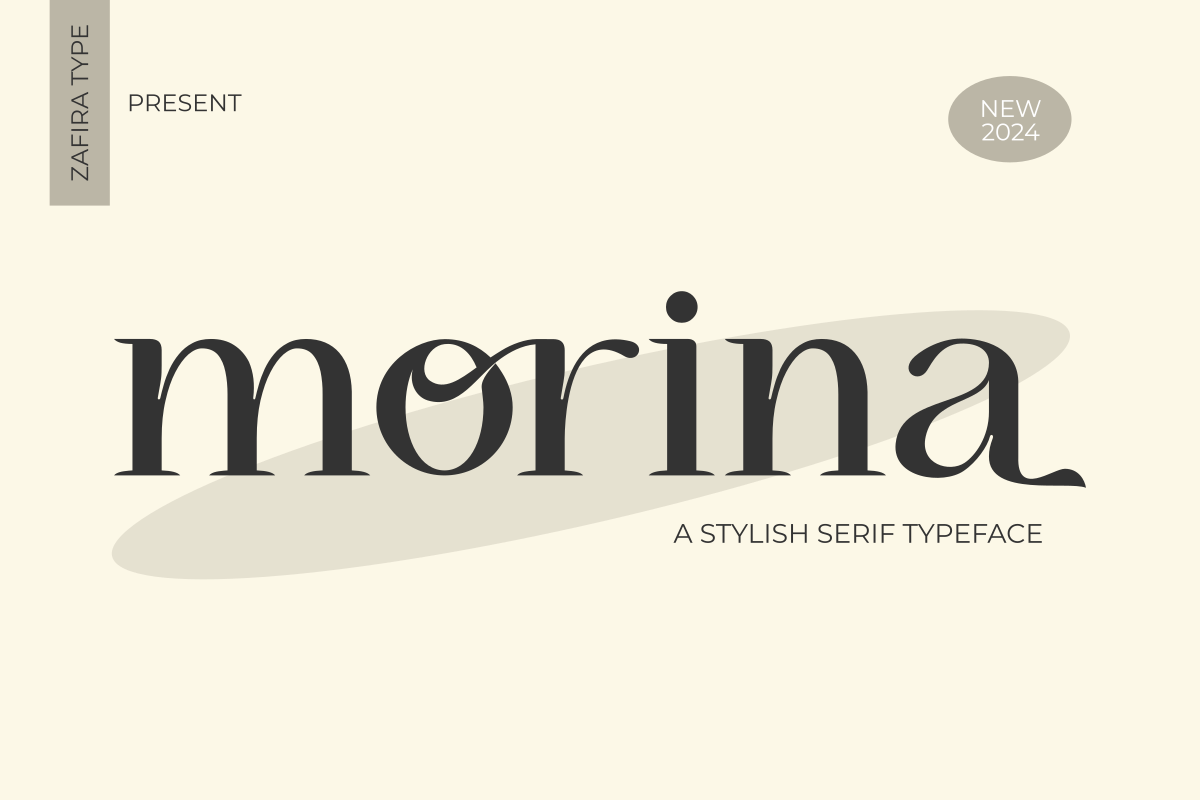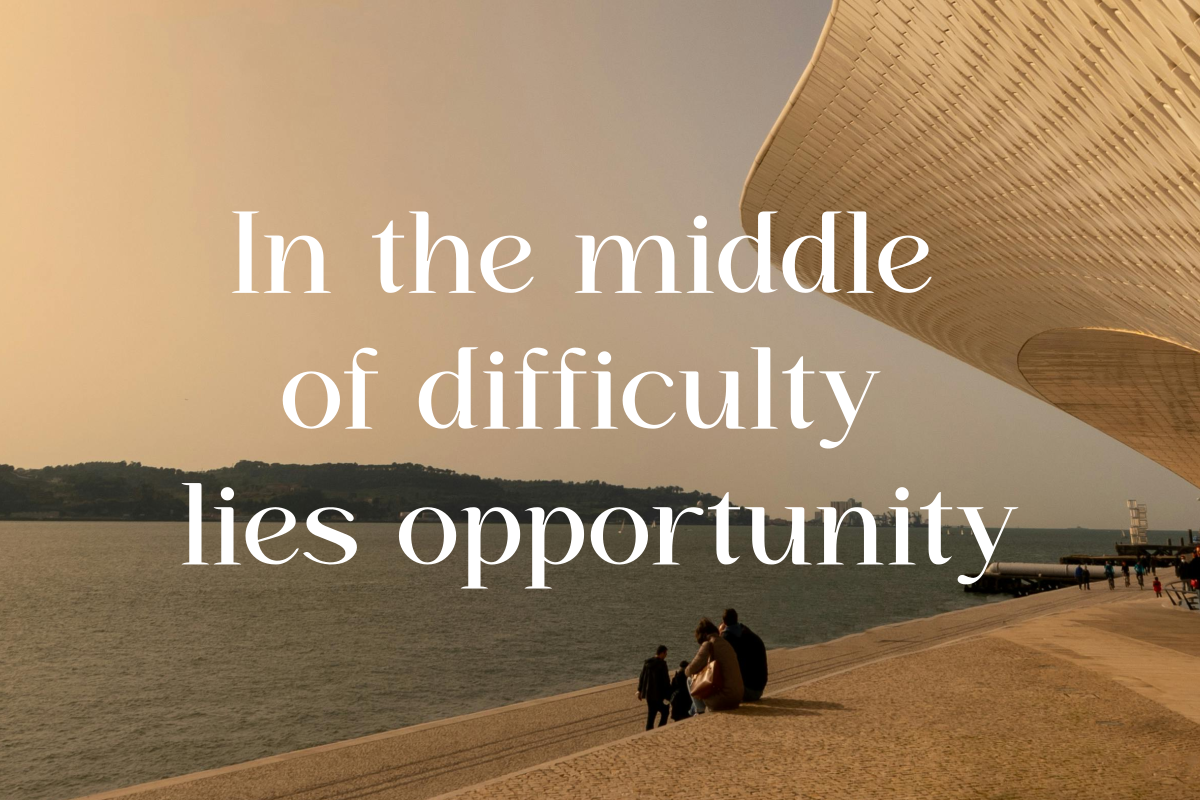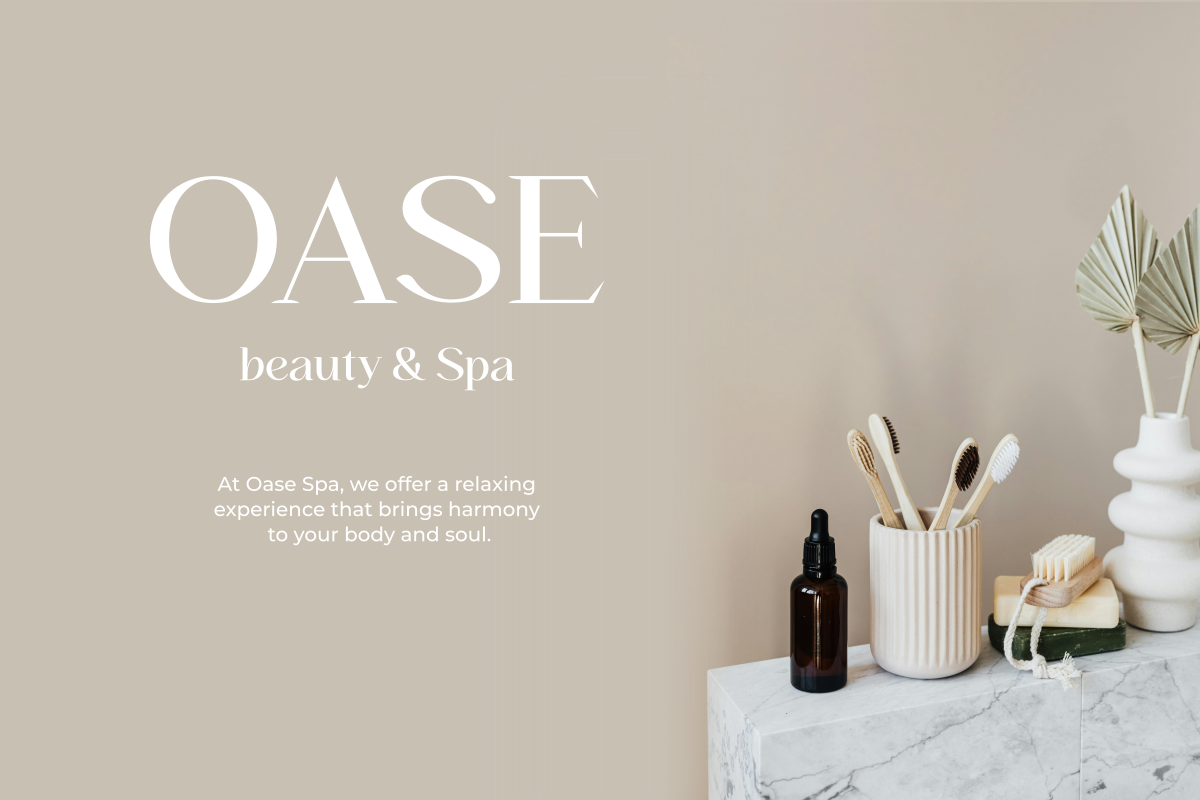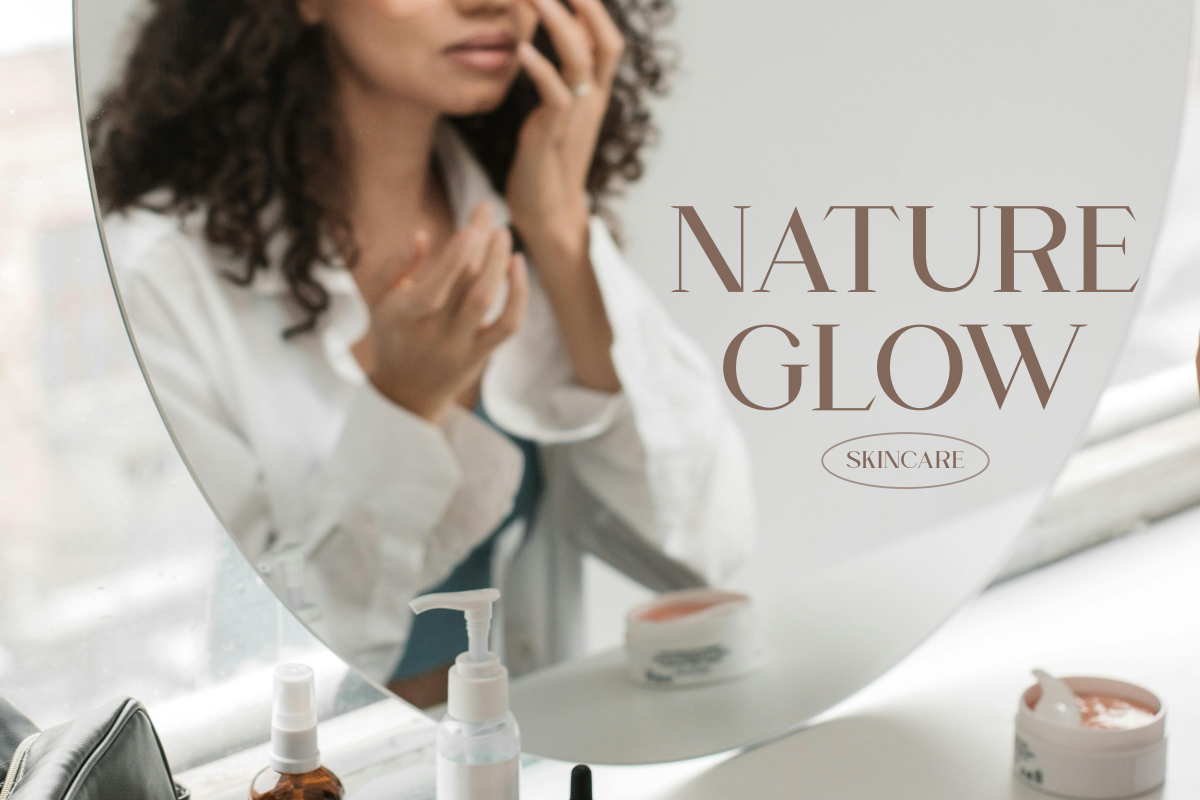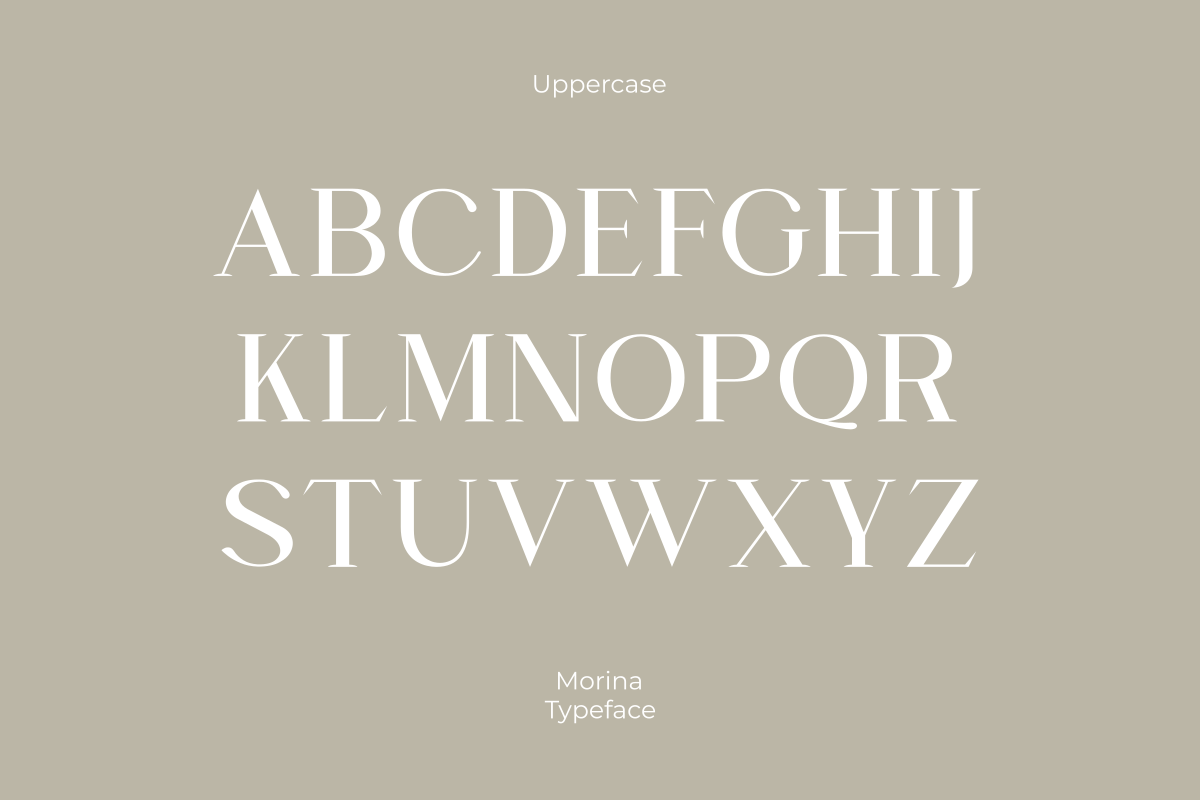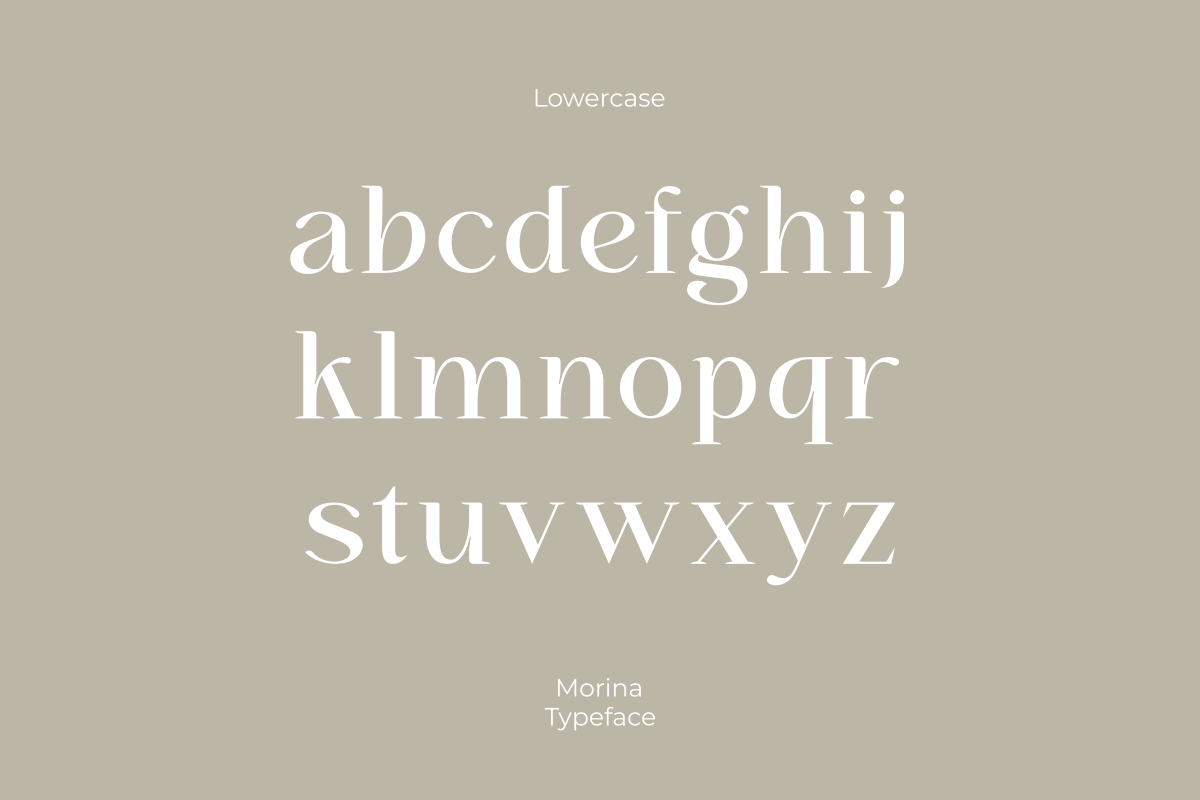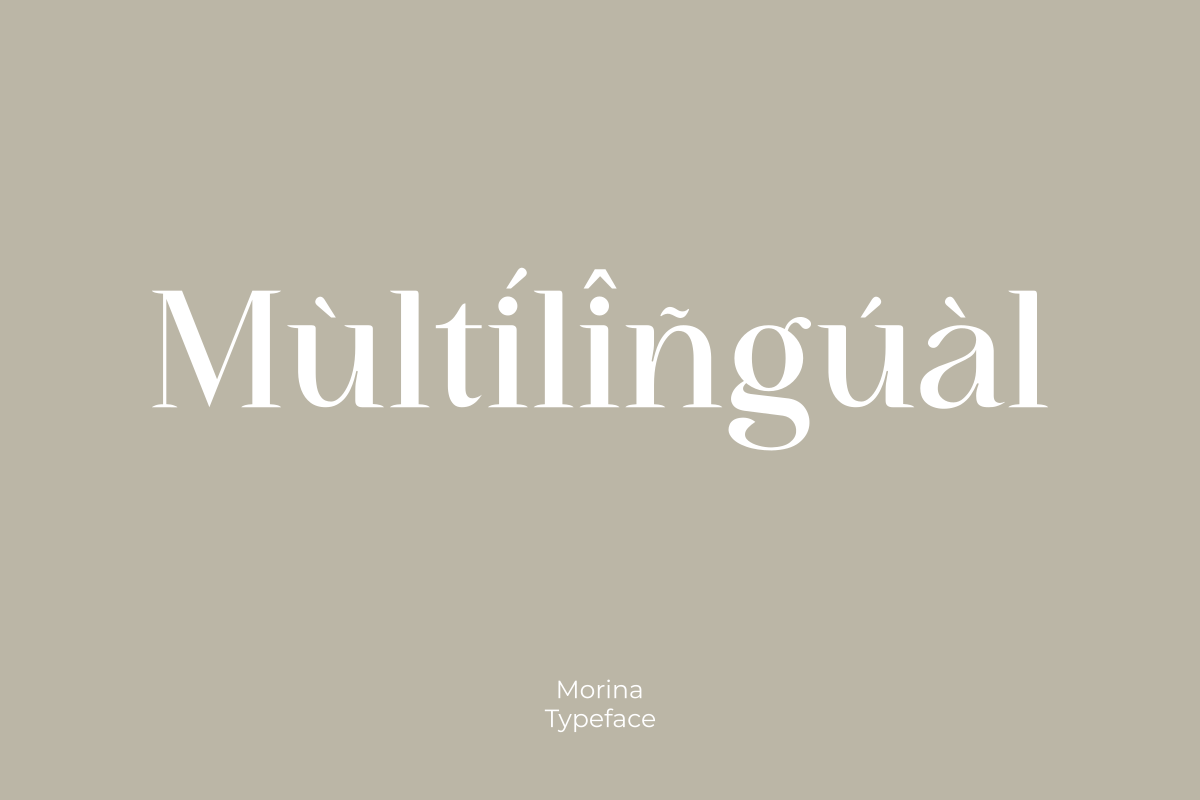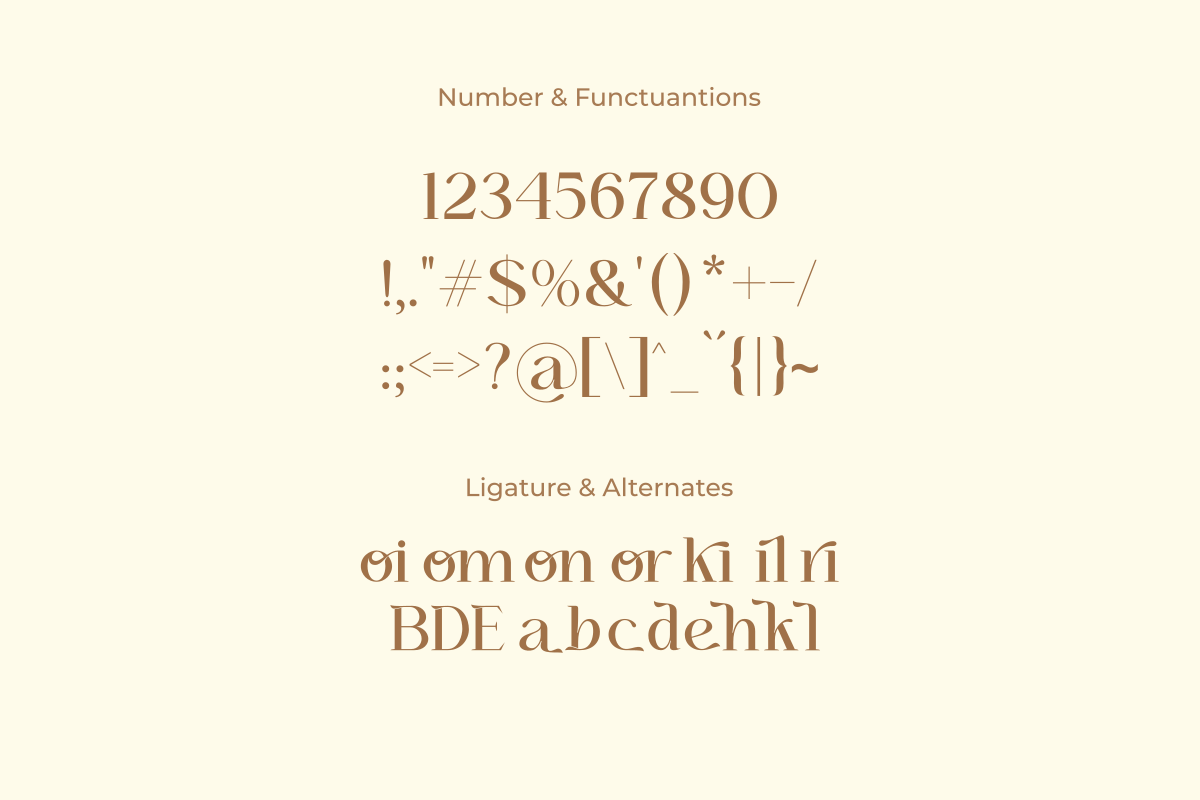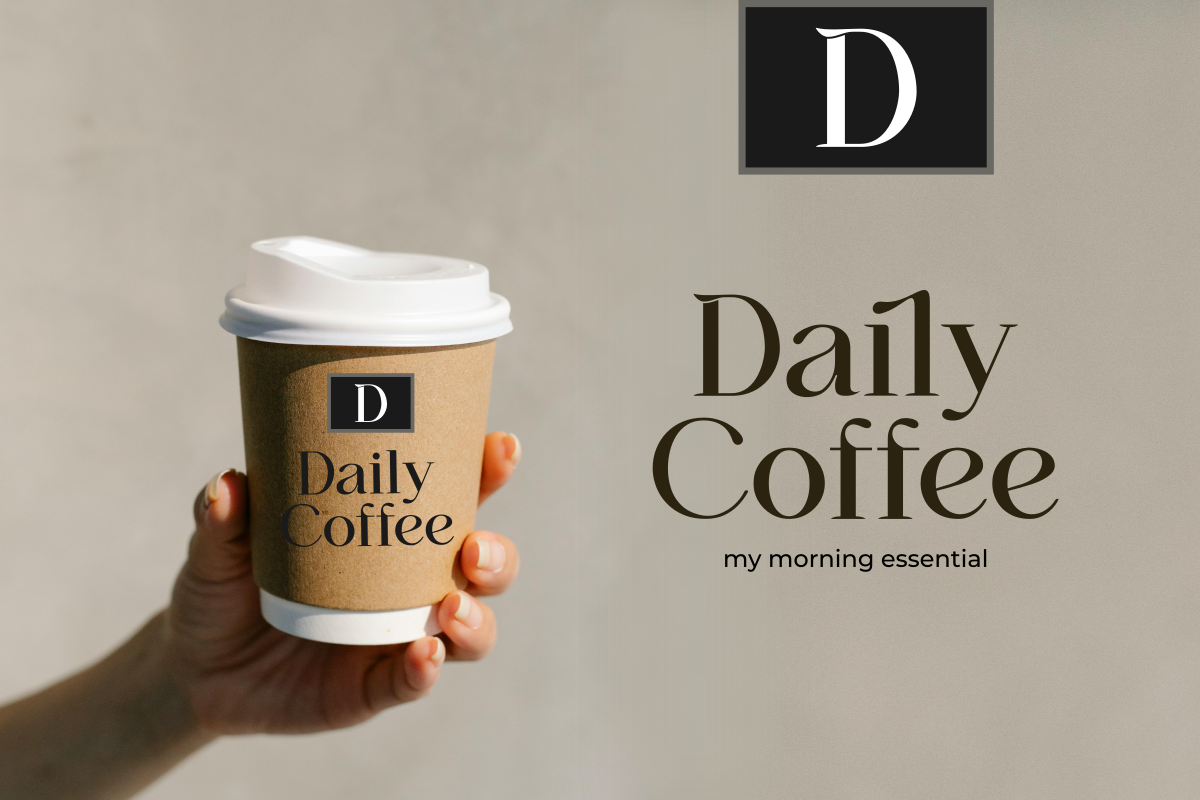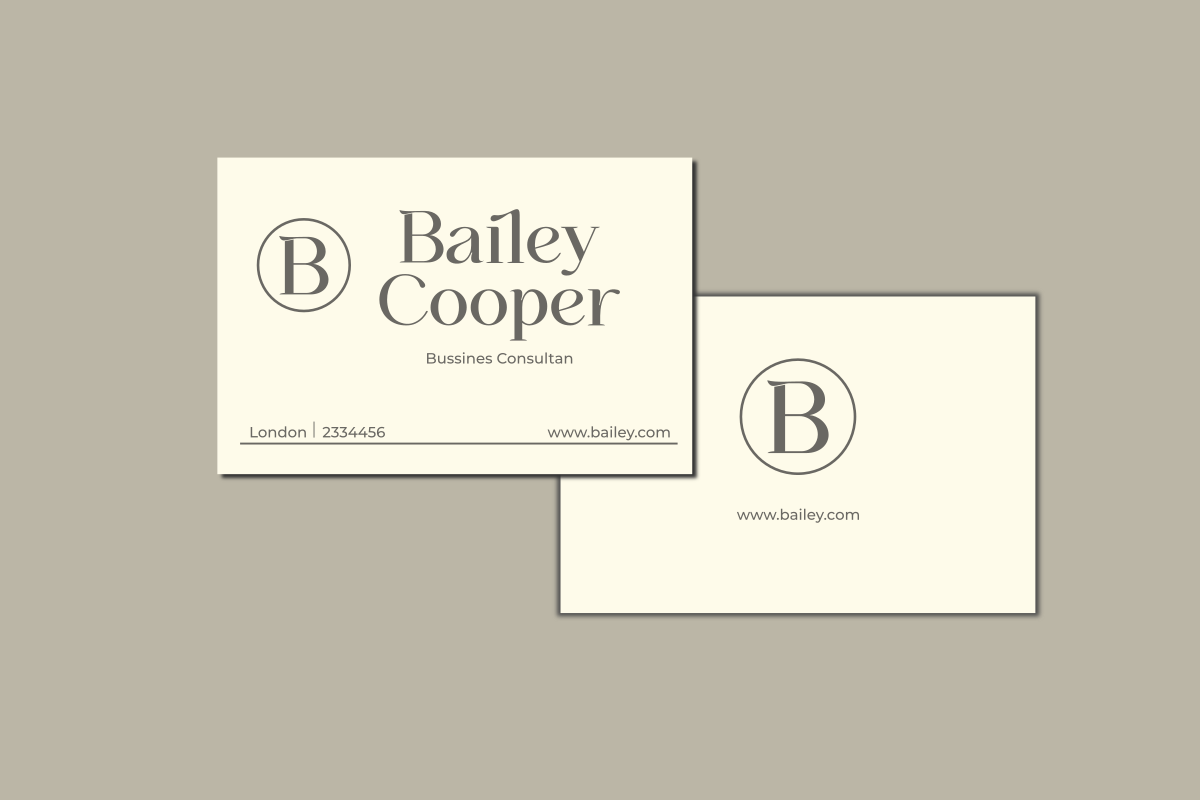
Morina
Morina is a captivating serif font, blending classic elements with modern elegance. Crafted meticulously to convey a clean and professional impression, Morina strikes a perfect balance between the traditional beauty of serif fonts and the clarity required for effective communication. Morina is easy to read and suitable for various design projects, from print to digital.
With subtle and elegant typographic touches, each letter in Morina is meticulously sculpted, creating visually appealing aesthetics. Balanced proportions and proportional x-height ensure comfortable readability across different sizes and media.